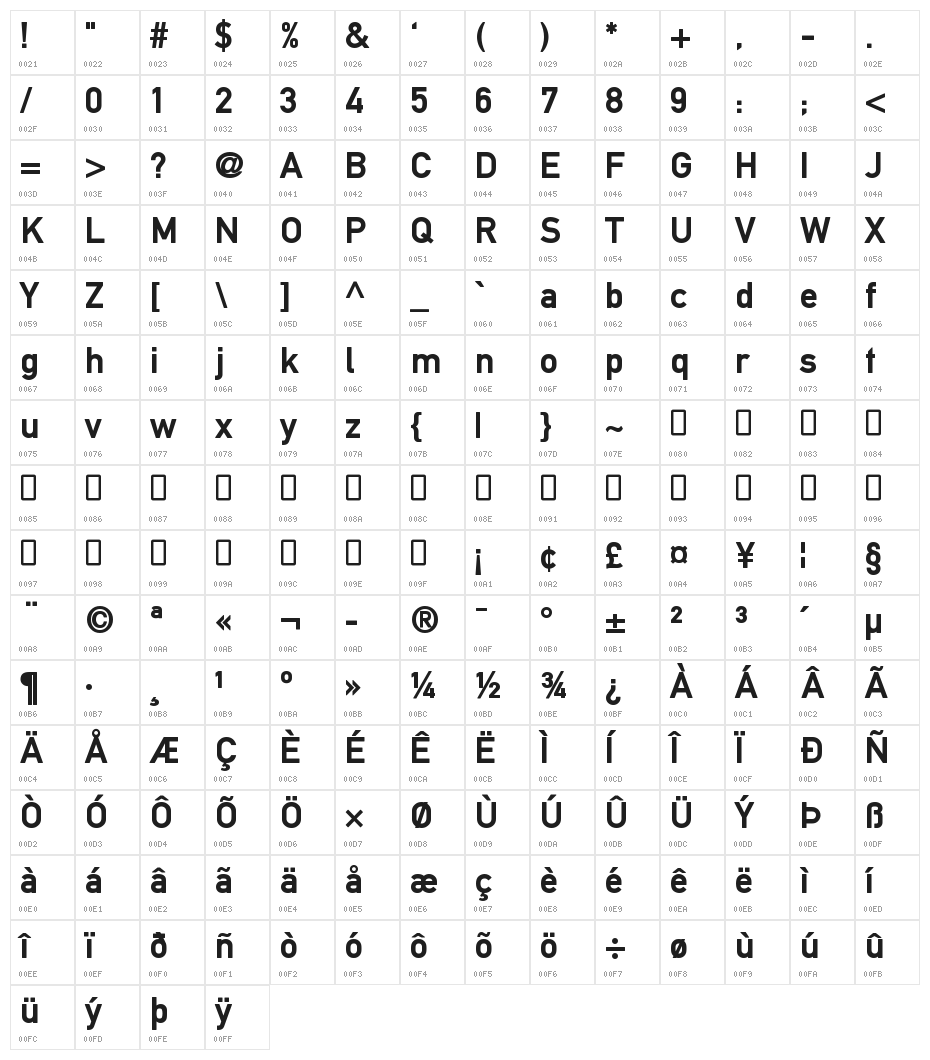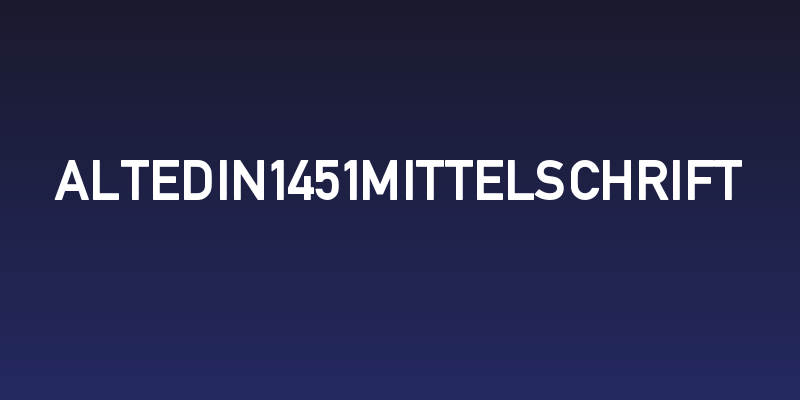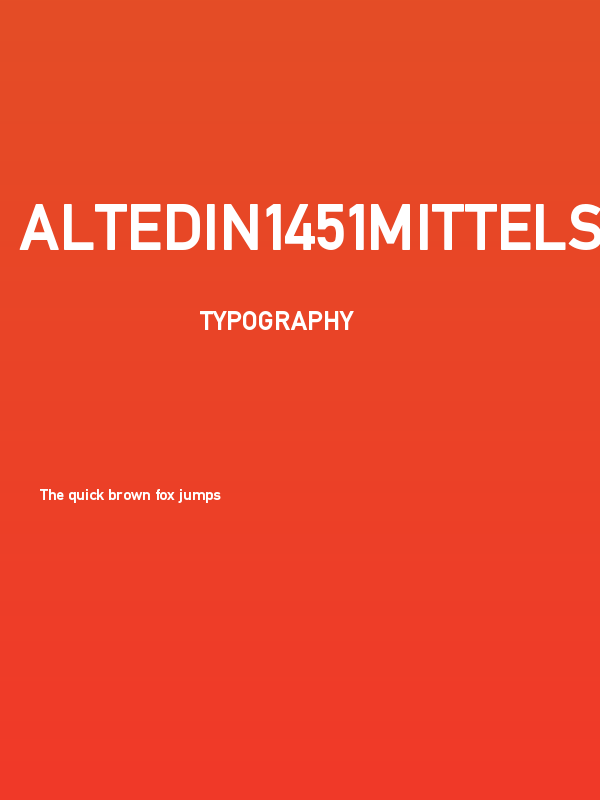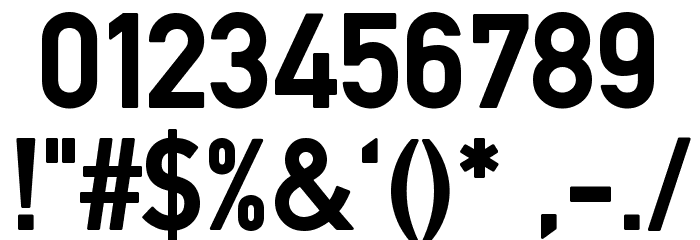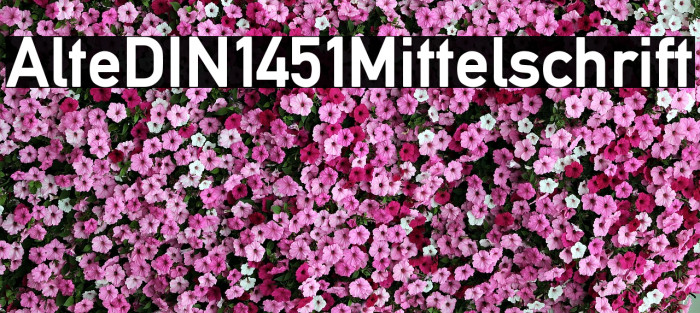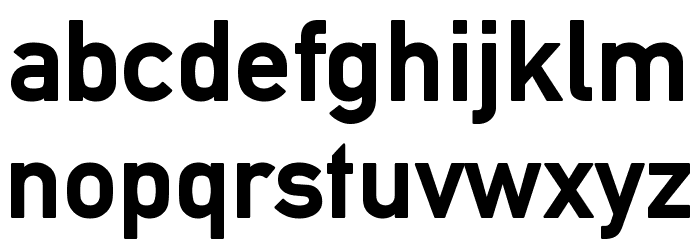
AlteDIN1451Mittelschrift Font
AlteDIN1451Mittelschrift Description
This font features a clean, geometric sans-serif style with uniform stroke widths, making it highly legible and functional. The characters are well-proportioned, with a modern and industrial feel. The uppercase letters are bold and assertive, while the lowercase letters maintain a consistent and balanced appearance. The numerals are clear and straightforward, ensuring readability. Special characters are designed with simplicity and clarity, aligning with the overall aesthetic. This font is versatile, suitable for a variety of applications where clarity and precision are paramount.
| Use Case | Headlines, Body text, Logos |
| Proposed Projects | Ideal for signage, technical documentation, branding, and user interfaces. |